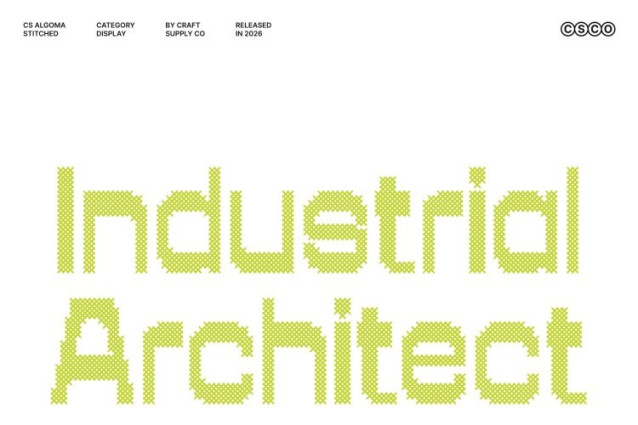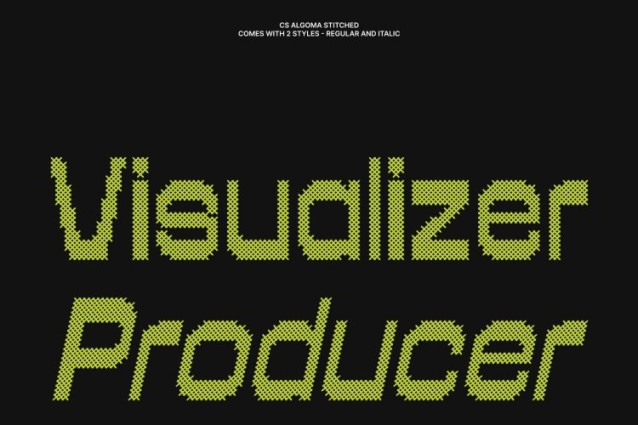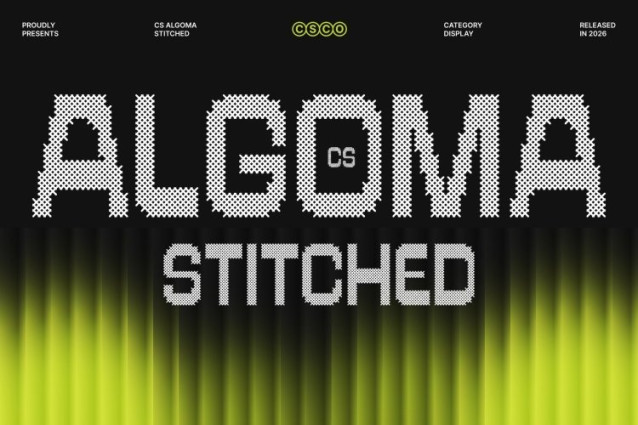
CS Algoma Stitched Font
CS Algoma Stitched Font – This is a reverse contrast sans serif display font that blends retro charm with contemporary precision. Built on bold geometric shapes and distinctive modular forms, it carries a playful yet structured personality. Its unconventional contrast reversal creates a dynamic rhythm, while the stitched style designed to mimic thread sewn or embroidered on fabric adds warmth and tactile depth to its modern construction.
Embossed Stitch Texture with Nostalgic Appeal
Enhanced with a cross-shaped stitch pattern, features a distinctive embossed and structured texture that gives each letter a fabric-like, handcrafted appearance. This detail introduces a classic, nostalgic, relaxed, and warm impression, balancing the font’s strong geometric form with a more personal and expressive feel.
Retro Inspiration with a Contemporary Edge
Drawing from mid-century design and vintage signage, this font captures the spirit of retro typography while maintaining clean, modern precision. The reverse contrast design flips traditional stroke logic, delivering a visually striking and unconventional look perfect for designers seeking individuality and bold character.
Perfect for Statement Branding and Creative Promotion
Ideal for posters, branding, editorial layouts, packaging, fashion logos, and craft-inspired projects, this is built to stand out. Its fusion of retro energy, geometric structure, and stitched texture makes it a versatile choice for brands that value artistic innovation and distinctive visual identity.